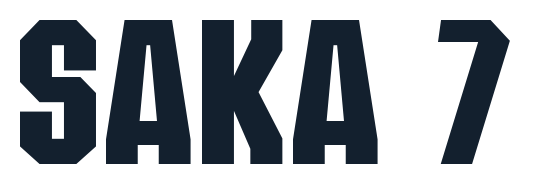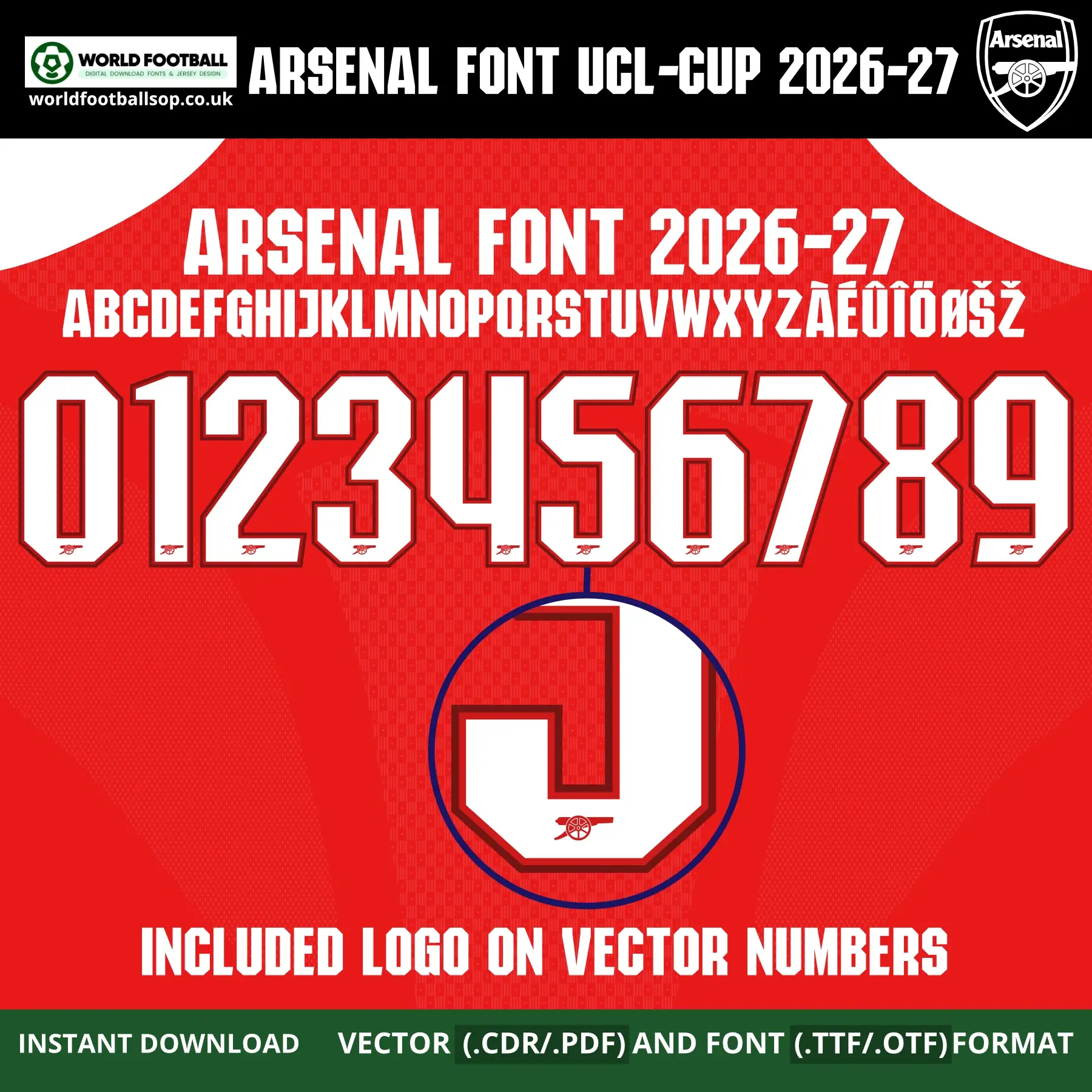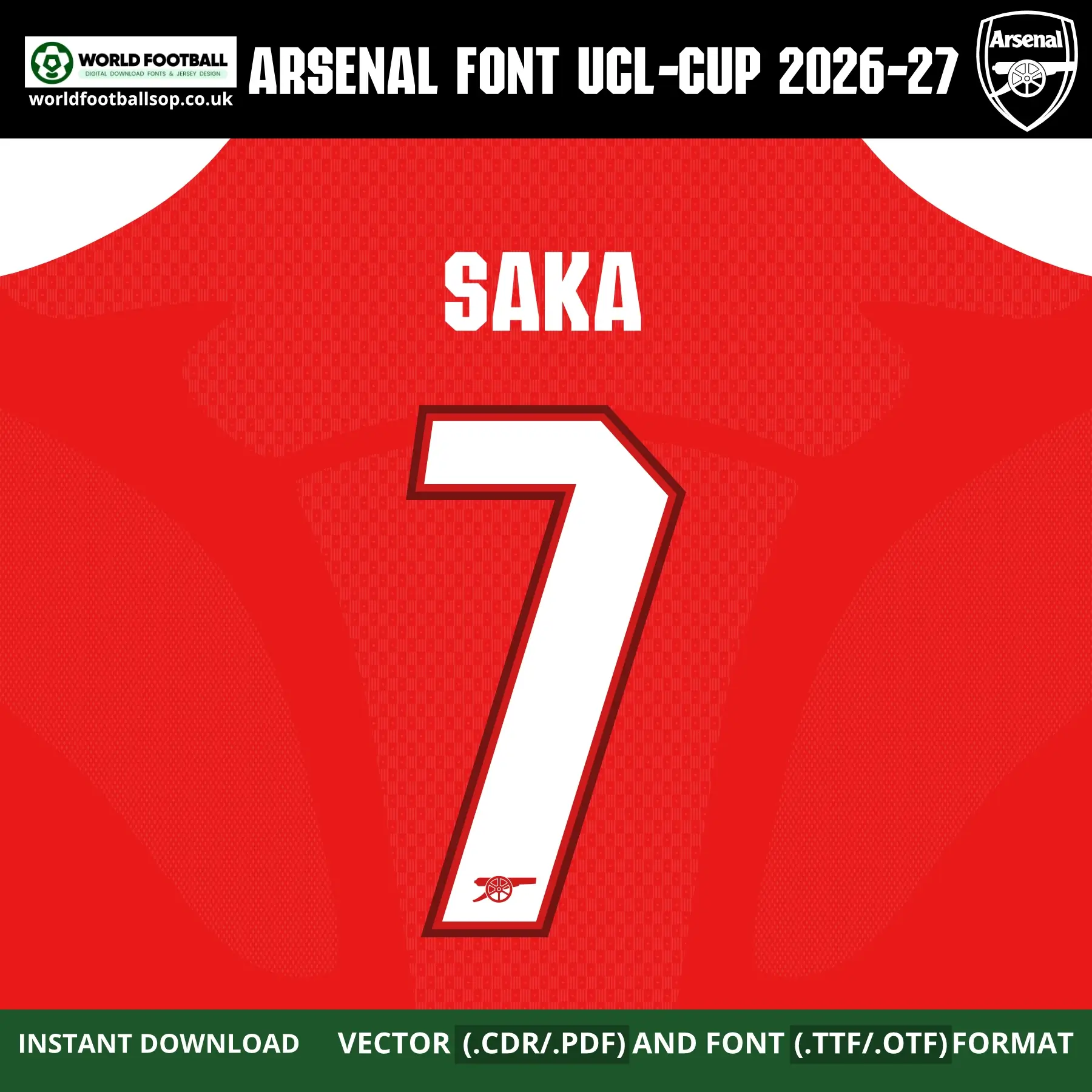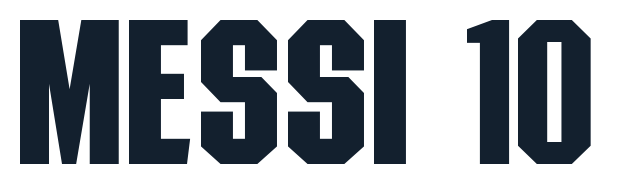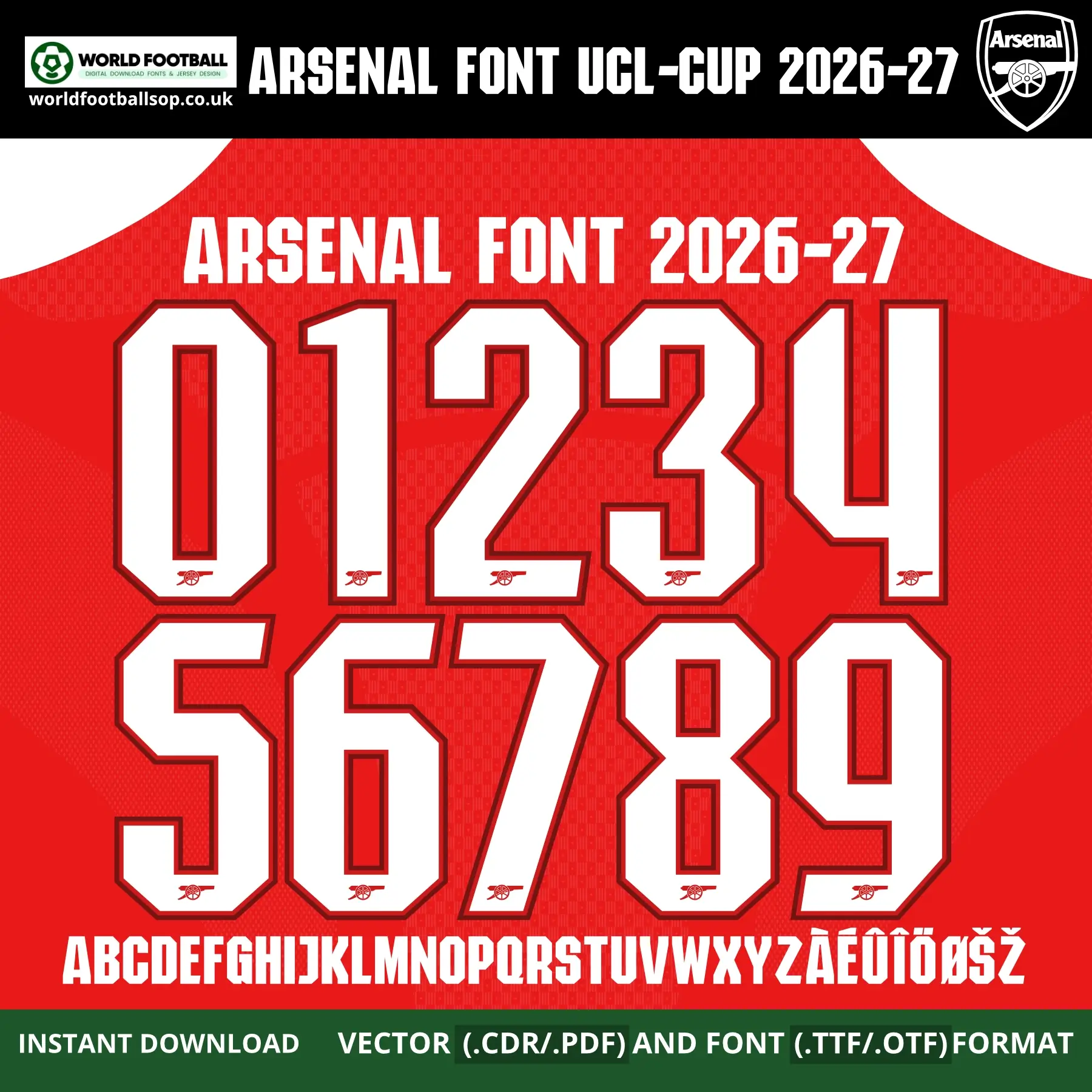
Download Arsenal Font UCL & Cup 2026-27 inspired by the official Gunners home kit typography for UEFA Champions League and cup competitions. Includes TTF, OTF and Vector (CDR, PDF) files with full A-Z letters and 0-9 numbers for custom Arsenal jerseys and fan designs. Instant digital download, no physical item.
Arsenal Font UCL 2026-27 - Officialβstyle Jersey Typography
This Arsenal Font UCL & Cup 2026-27 recreates the bold, wide block lettering used on Arsenal's iconic red home shirts for the 2026-27 UEFA Champions League and cup season at the Emirates. The tall, rounded numbers and letters feature a clean white fill with a bold dark red outer outline/shadow, giving each character a strong three-dimensional presence - the same commanding visual impact seen on the Gunners' shirts when SAKA 7 or MARTINELLI charge down the right flank. Set against the deep red Arsenal home kit with its characteristic geometric diamond pattern, the font football has an instantly recognisable Highbury-meets-modern-football aesthetic.
The font is supplied in both desktop formats (TTF/OTF) and scalable vector files so you can work comfortably in your favourite design software. The bright white lettering with red outline on the vibrant Arsenal home kit background seen in the previews mirrors the official 2026-27 UCL colour palette, making your mockups and prints look match-ready straight away. Every vector number includes the embedded Arsenal cannon crest logo for maximum authenticity, clearly visible at the base of each character.
Arsenal cannon crest logo embedded on every vector number and letter
Full uppercase alphabet A-Z and numbers 0-9 with extended accents (Γ, Γ, Γ, Ε , Ε½)
Preview layouts showing complete number set and example name/number combo - SAKA 7
UCL & Cup accuracy: Inspired by the exclusive Arsenal Font UCL & Cup 2026-27, valid for Champions League, FA Cup and League Cup kit applications
Bold identity: Wide block forms with red outline detail give Arsenal numbers their unique commanding presence, clearly distinguishable from other Premier League fonts
Whether you are designing a full squad of custom Arsenal shirts or a single fan jersey with your own name and number, this Arsenal Font UCL & Cup 2026-27 gives your project a professional, on-pitch Emirates look.